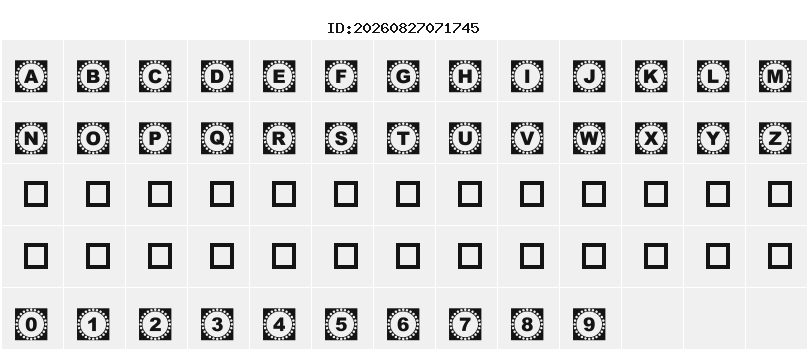
4YEO OUT Preview
• Font Name: 4YEO OUT
• Full Font Name: 4YEO OUT
• Character Count: 37
About 4YEO OUT.ttf
4YEO OUT.ttf is a modern, elegant sans-serif font designed for ultimate readability and visual harmony. Perfect for branding, headlines, web design, and print materials.